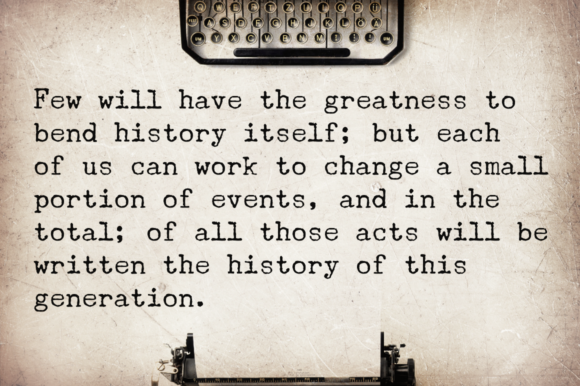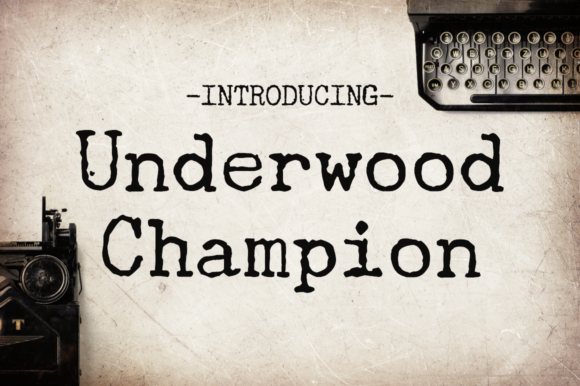
Underwood Champion
About Underwood Champion Font
Underwood Champion is a gorgeous typewriter font. Inspired by Underwood Typewriters, this bold and beautiful display font will add a vintage charm to your work. Get this free font from Vic Fieger.